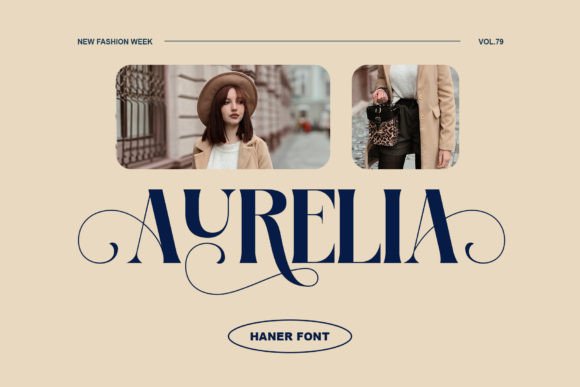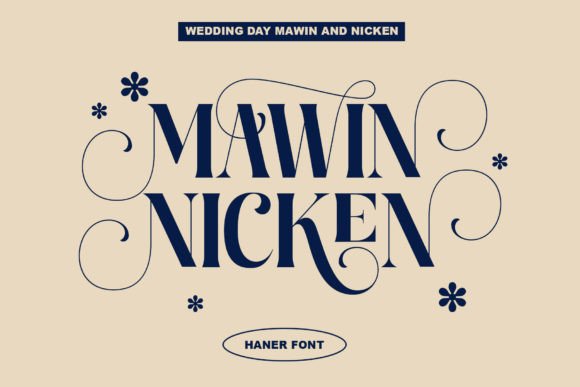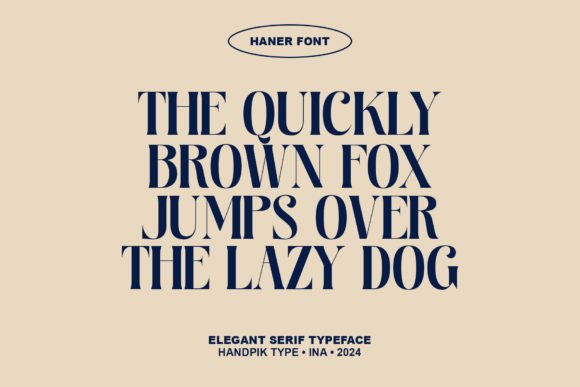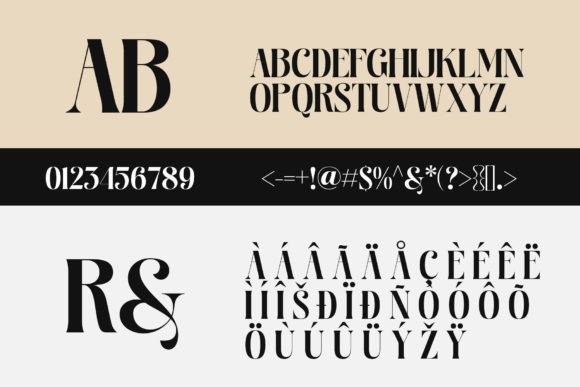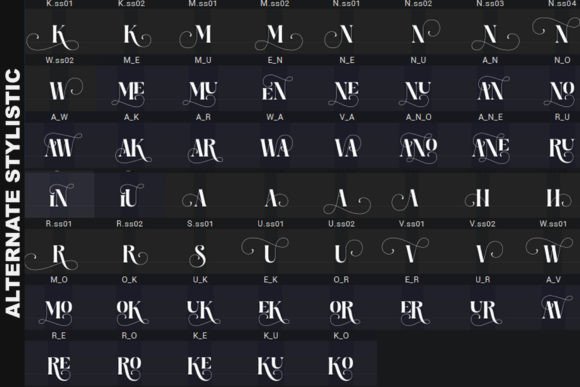
Introducing Haner Font: Elevate Your Designs with Elegance and Sophistication
Are you a designer or crafter looking for a font that exudes elegance and sophistication? Look no further than Haner Font, a stunning serif font that is sure to elevate the beauty of your projects. With its delicate and classy look, Haner Font is the perfect choice for those who want to add a touch of refinement to their designs.
What is Haner Font?
Haner Font is an elegant serif font that features a very delicate and classy look. Not too thin and not too thick, balanced and varied, Haner was designed to enhance the beauty of your projects. Its unique design makes it an excellent choice for a wide range of applications, from luxury branding to high-end packaging, and from editorial design to web design.
Key Features of Haner Font
- Elegant Serif Design: Haner Font boasts a classic serif design that exudes elegance and sophistication.
- Delicate and Classy Look: The font features a delicate and classy look that is sure to add a touch of refinement to your designs.
- Balanced and Varied: Haner Font is designed to be balanced and varied, making it perfect for a wide range of applications.
- Not too Thin and Not too Thick: The font’s stroke width is carefully crafted to be neither too thin nor too thick, making it easy to read and visually appealing.
Why Choose Haner Font?
There are many reasons why Haner Font stands out from the crowd. Here are just a few:
- Unique Design: Haner Font has a unique design that sets it apart from other serif fonts.
- Versatility: The font is versatile and can be used for a wide range of applications, from print to digital.
- Ease of Use: Haner Font is easy to read and use, making it perfect for body text and headlines.
- High-Quality: The font is designed to be high-quality, with crisp and clean lines that will make your designs stand out.
Tips and Tricks for Using Haner Font
Here are a few tips and tricks for getting the most out of Haner Font:
- Use it for Headlines and Body Text: Haner Font is perfect for both headlines and body text, making it a versatile addition to your font library.
- Experiment with Font Sizes: Experiment with different font sizes to find the perfect balance for your design.
- Pair it with Other Fonts: Haner Font pairs well with other fonts, so don’t be afraid to experiment with different combinations.
| Font Name | Haner Font |
| Author | handpik |
In conclusion, Haner Font is a stunning serif font that is sure to elevate the beauty of your projects. With its elegant design, delicate and classy look, and versatility, it’s the perfect choice for designers and crafters who want to add a touch of sophistication to their designs. So why wait? Download Haner Font today and start creating stunning designs that will leave a lasting impression.